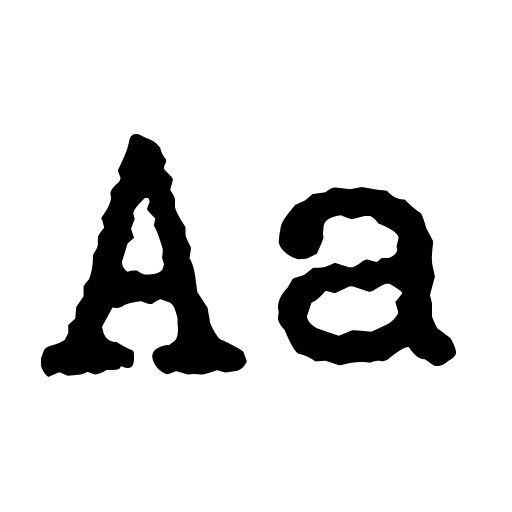
Bohemian Typewriter is a distinctive serif font that mimics the irregular, textured look of vintage typewriter text, featuring a medium weight and normal width with a moderate x-height. Its rough, slightly distressed letterforms give it a nostalgic, authentic feel, making it perfect for designs needing a retro or handmade touch. This font works well for editorial projects, posters, packaging, and branding that aim to evoke a sense of history, creativity, or individuality.
Bohemian Typewriter Font
About Bohemian Typewriter Font